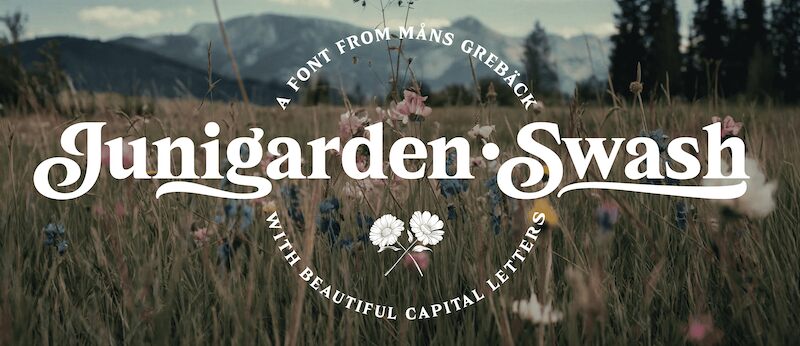
Junigarden Serif font by Mans Greback is a testament to vintage elegance, capturing a warm and nostalgic feel. It flawlessly balances boldness with delicacy, featuring flowing swashes that provide a decorative touch. The charm of its classic serif style elevates the font’s refined and formal tone, making it an eye-catching yet versatile choice.
Explore endless possibilities for Junigarden in design projects from headlines to magazines, invitations to branding, and posters to signage. Suitably used in luxury packaging or greeting cards, its usage has no limits when included in apparel designs, business cards designs, web design projects or social media posts.
Use an underscore (_) anywhere in a word to create a swash.
Example: Pri_nce
Adding multiple underscores creates different swashes:
Example: Am_______ore